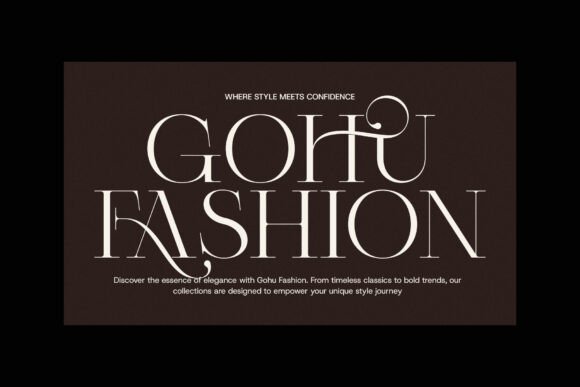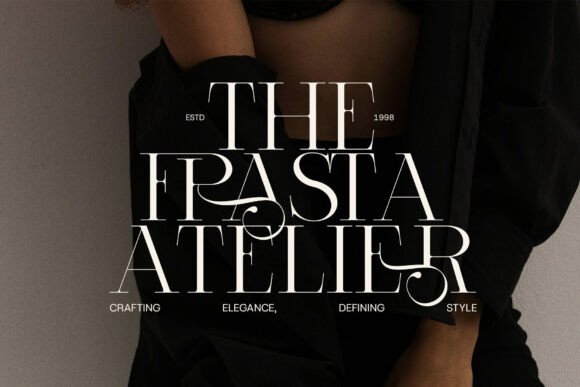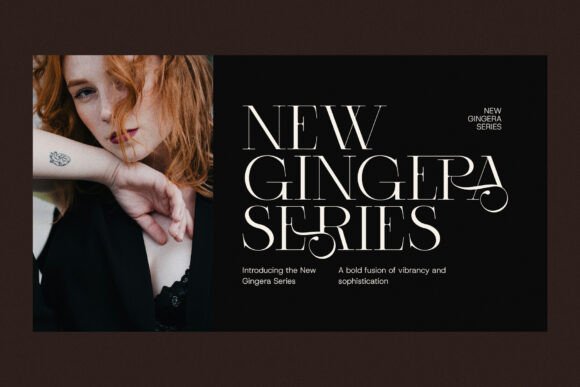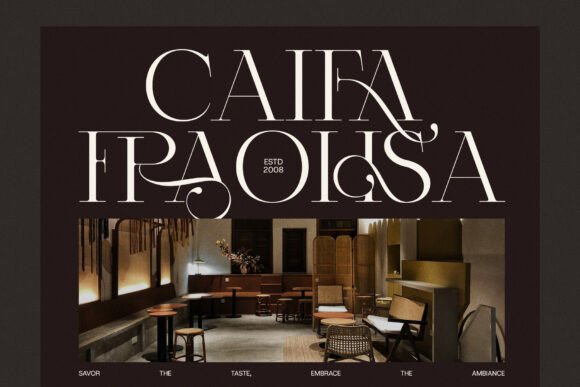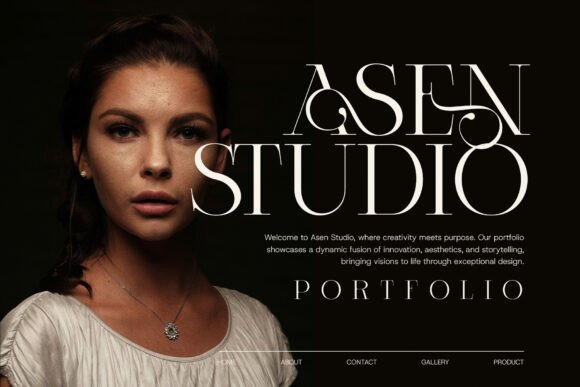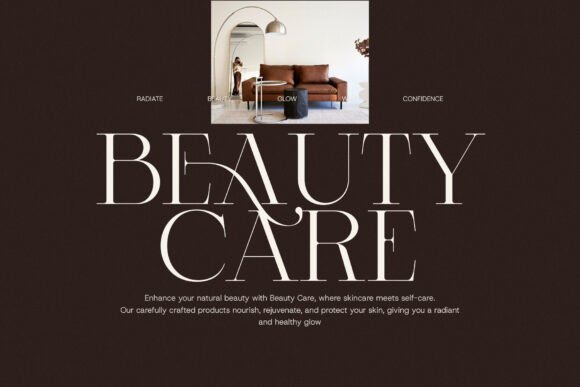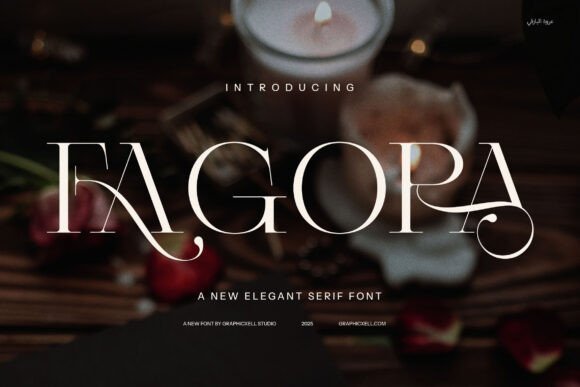
Fagora Calligraphy Serif Font: Elevate Your Designs with Elegance and Sophistication
In the world of typography, few fonts manage to strike a balance between modern sophistication and classic calligraphy. Fagora Calligraphy Serif Font is one such exceptional typeface that brings together the best of both worlds. Designed to add an elegant and artistic touch to any project, Fagora is a stunning blend of refined letterforms, graceful curves, and unique ligatures that will make your designs stand out.
A Perfect Blend of Modernity and Tradition
Fagora Calligraphy Serif Font boasts a distinctive style that sets it apart from other typefaces. Its calligraphic roots bring a sense of fluidity and elegance, while its modern serif structure ensures versatility and readability across both print and digital mediums. This makes Fagora an excellent choice for designers looking to create logos, branding, websites, magazines, and advertisements that make a lasting impression.
Unleash Your Creativity with Fagora
Whether you’re designing for a boutique, a high-end food brand, or a luxury product line, Fagora’s flowing, stylish characters infuse your designs with character and charm. The font’s refined letterforms and elegant curves create a sense of sophistication, while its unique ligatures and alternate forms allow for creative customization. This level of flexibility makes Fagora an excellent choice for designers who want to add a personal touch to their work.
Key Features of Fagora Calligraphy Serif Font
- Unique Ligatures and Alternates: Fagora offers a range of unique ligatures and alternate forms that give it a personalized, handcrafted feel.
- Refined Letterforms: The font’s refined letterforms and elegant curves create a sense of sophistication and elegance.
- Modern Serif Structure: Fagora’s modern serif structure ensures versatility and readability across both print and digital mediums.
- Calligraphic Roots: The font’s calligraphic roots bring a sense of fluidity and elegance to your designs.
Why Choose Fagora Calligraphy Serif Font?
Fagora Calligraphy Serif Font excels in upscale projects where distinction is key. Its unique ligatures and alternate forms allow for creative customization, making it an excellent choice for designers who want to create something truly unique. Here are just a few reasons why Fagora stands out:
- Elegance and Sophistication: Fagora adds an elegant and artistic touch to any project, making it perfect for high-end designs.
- Versatility: The font’s modern serif structure ensures versatility and readability across both print and digital mediums.
- Creative Freedom: Fagora’s unique ligatures and alternate forms allow for creative customization, giving you the freedom to experiment with different design ideas.
Perfect for a Range of Design Projects
Fagora Calligraphy Serif Font is perfect for a range of design projects, including:
- Logos and Branding: Create a lasting impression with Fagora’s elegant and sophisticated letterforms.
- Websites and Digital Media: Fagora’s modern serif structure ensures readability and versatility across digital mediums.
- Magazines and Print Media: The font’s refined letterforms and elegant curves create a sense of sophistication and elegance in print.
- Advertisements: Fagora’s unique ligatures and alternate forms make it perfect for creating eye-catching advertisements.
In conclusion, Fagora Calligraphy Serif Font is a stunning blend of modern sophistication and classic calligraphy. Its unique ligatures, refined letterforms, and elegant curves make it perfect for designers looking to add an artistic touch to their work. With its versatility, creative freedom, and elegance, Fagora is an excellent choice for upscale projects where distinction is key. Whether you’re designing for a boutique, a high-end food brand, or a luxury product line, Fagora is sure to elevate your designs to the next level.